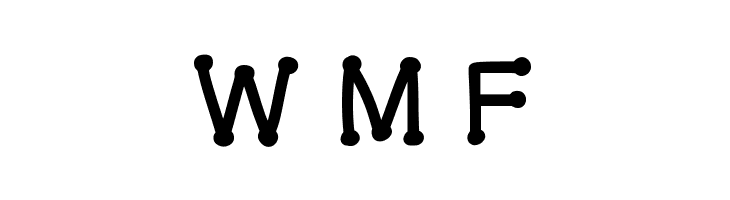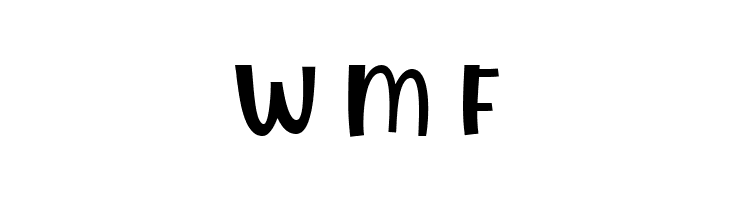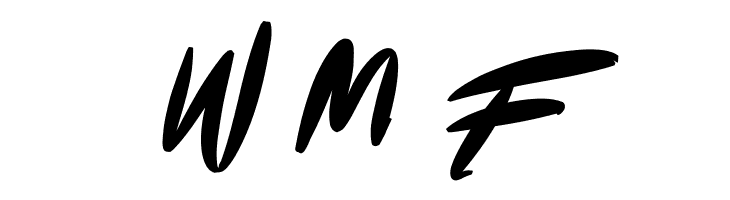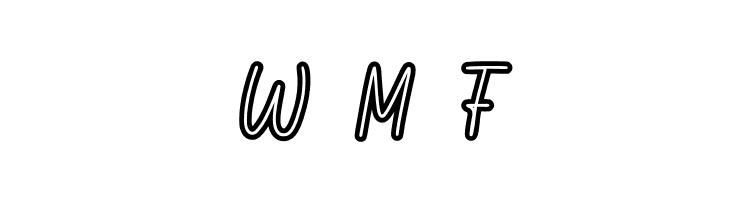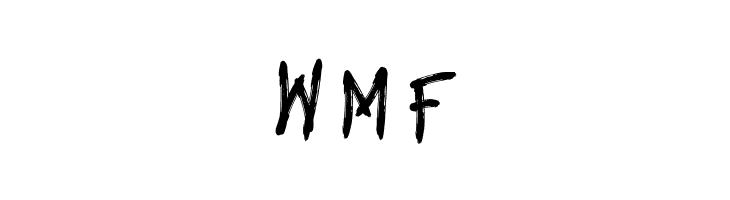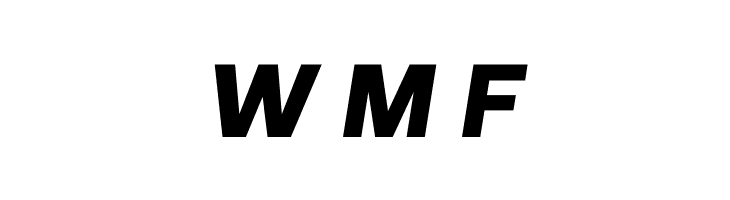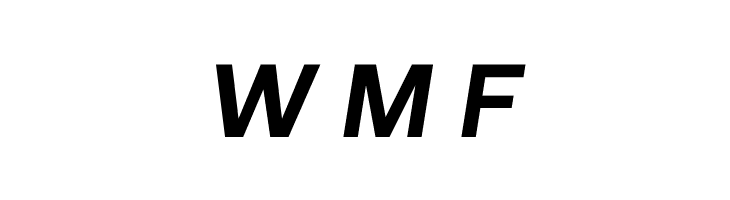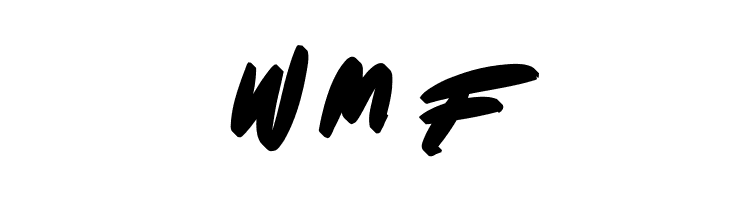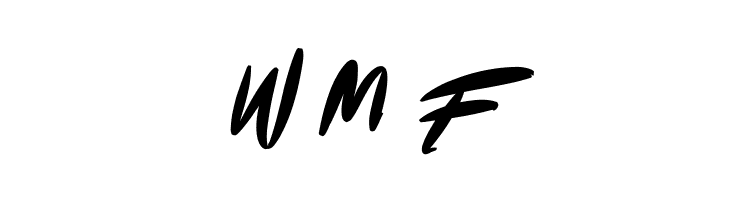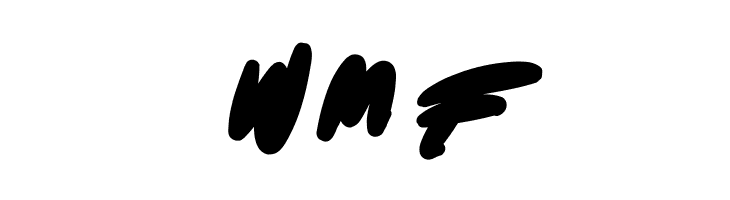
A modern-vintage serif font with arrow-like serifs and artistic flair.
A bold, distressed font with a grunge texture.
A tactile writing system using raised dot patterns for the visually impaired.
A decorative font featuring playful, hand-drawn icons in circular enclosures.
A modern, geometric font with a clean and minimalist design.
A playful dingbat set featuring educational and office-themed icons.
A bold, italic font with a dynamic and modern style.
An italicized outline font with a playful and dynamic style.
A playful, outlined font with a hand-drawn, whimsical style.
A playful, hand-drawn font with a whimsical and dynamic style.
A bold, brush-like font with an expressive and dynamic style.
A classic serif font with high contrast and elegant serifs.
A bold, handwritten-style font with dynamic, expressive strokes.
A futuristic, geometric font with bold, angular characters.
A bold, geometric decorative font with halftone patterns and sharp, modern lines.
A bold, playful handwritten font with outlined characters and a casual style.
An elegant, flowing script font with interconnected characters and a classic style.
A bold, hand-drawn font with a lively and energetic style.
A geometric, angular font with a modern and technical style.
A bold, oblique font with strong, thick strokes and a dynamic slant.
A bold, oblique sans-serif font with a modern and dynamic style.
A bold, modern font with thick, uniform strokes and geometric shapes.
A playful, whimsical handwritten font with irregular, dynamic letterforms.
A bold, dynamic brush script font with expressive, flowing strokes.
A bold, dynamic script font with a 3D extruded effect, perfect for modern designs.
A bold, energetic script font with a hand-drawn, brush-like texture.
A bold, brush-style font with high contrast and dynamic strokes.
A dynamic and elegant script font with fluid, cursive strokes.
An elegant script font with flowing cursive style and intricate swashes.
A whimsical and bold font with playful curves and decorative elements.
A bold, decorative font with intricate patterns and a modern, artistic style.
A playful, heart-adorned font with bold, rounded characters.
A playful, bold font with rounded, cartoon-like characters.